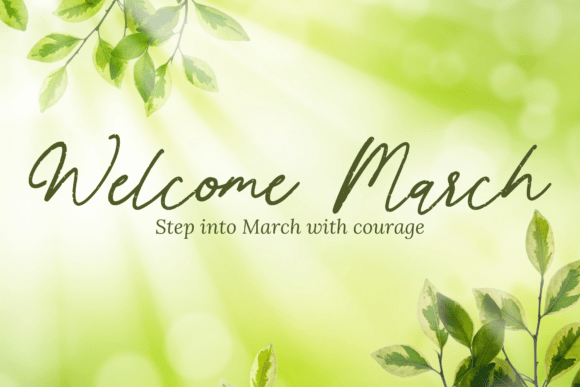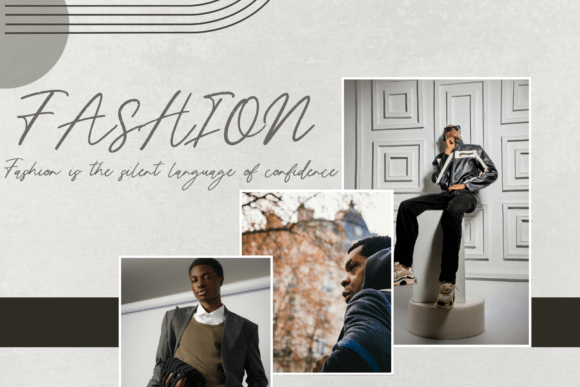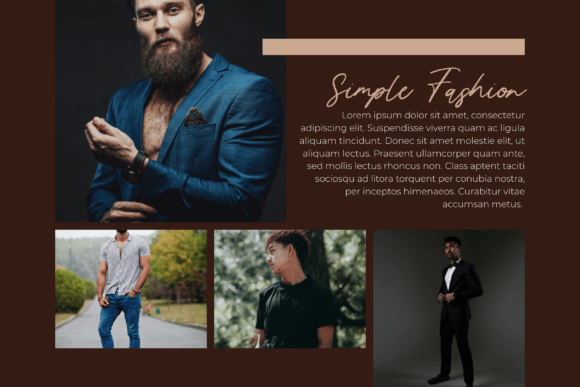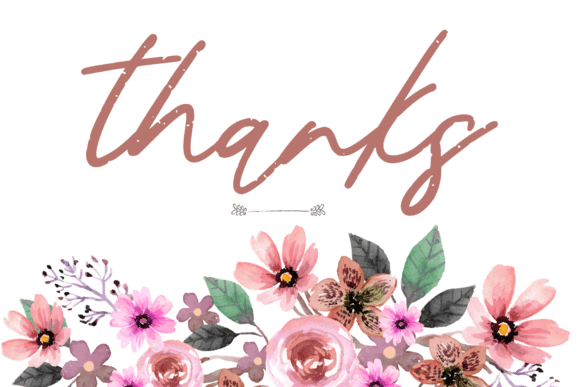
Bridgend Font: Elevate Your Designs with a Bold and Expressive Brush Typeface
In the world of typography, a well-crafted font can make all the difference in elevating your design to the next level. For designers and crafters looking to add a touch of personality and elegance to their work, the Bridgend Font is an excellent choice. This bold and expressive brush typeface is inspired by confident hand lettering and modern branding aesthetics, making it perfect for those seeking to make a statement.
What is Bridgend Font?
Bridgend Script is a dynamic and stylish font that embodies the essence of confident hand lettering and modern branding. Designed with dynamic strokes and natural movement, this font exudes a strong personality while maintaining an elegant flow. The result is a typeface that is both eye-catching and sophisticated, making it ideal for a wide range of design applications.
Key Features of Bridgend Font
• Bold and Expressive: Bridgend Font boasts a bold and expressive design, perfect for making a statement in your designs.
• Brush Typeface: With its brush-inspired strokes, this font adds a touch of natural movement and elegance to your work.
• Dynamic Strokes: The font’s dynamic strokes give it a sense of energy and fluidity, making it perfect for designs that require a bit of personality.
• Elegant Flow: Despite its bold nature, Bridgend Font maintains an elegant flow, making it suitable for a wide range of design applications.
Who is Bridgend Font for?
Bridgend Font is perfect for designers and crafters who want to add a touch of sophistication and personality to their work. Whether you’re a seasoned designer or just starting out, this font is an excellent choice for:
• Graphic Designers: Looking to create stunning visual content that stands out from the crowd.
• Logicians and Branding Experts: Seeking to create a strong brand identity that resonates with their audience.
• Crafters and Makers: Wanting to add a personal touch to their handmade products and packaging.
How to Use Bridgend Font
Using Bridgend Font in your designs is easy. Here are a few tips to get you started:
• Pair it with a neutral font: Combine Bridgend Font with a neutral font to create a striking contrast and add visual interest to your design.
• Experiment with colors: Play around with different colors to find the perfect combination that complements your design.
• Use it sparingly: While Bridgend Font is bold and expressive, it’s best used sparingly to avoid overwhelming your design.
Why Choose Bridgend Font?
With so many fonts available, why choose Bridgend Font? Here are just a few reasons:
• Unique and distinctive: Bridgend Font is a one-of-a-kind typeface that will set your design apart from the rest.
• Elegant and sophisticated: Despite its bold nature, this font exudes elegance and sophistication, making it perfect for high-end designs.
• Versatile: Bridgend Font can be used in a wide range of design applications, from branding and advertising to packaging and more.
In conclusion, Bridgend Font is an exceptional choice for designers and crafters looking to add a touch of personality and elegance to their work. With its bold and expressive design, dynamic strokes, and elegant flow, this font is perfect for making a statement. Whether you’re a seasoned designer or just starting out, Bridgend Font is an excellent addition to your typography arsenal.